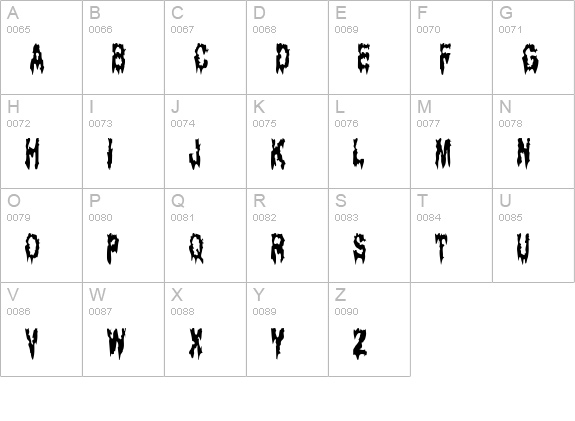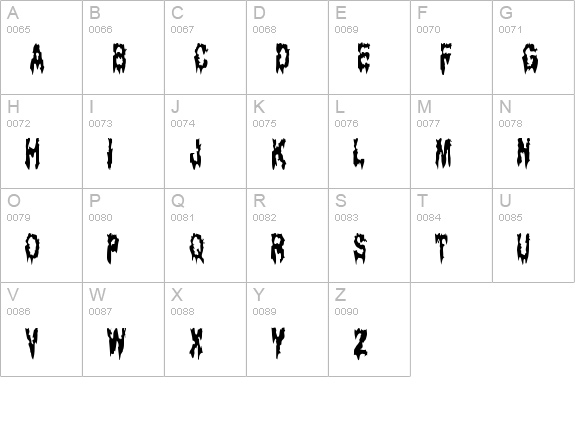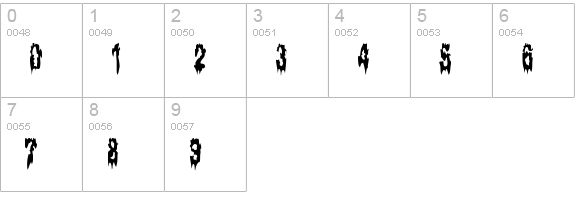
GhostBayou Font Details
Introducing GhostBayou font, a captivating and ethereal typeface that will add a touch of mystery and intrigue to your designs. This unique font features hauntingly beautiful letterforms with a ghostly aura, making it perfect for projects that require a spooky or supernatural vibe. What's even better is that GhostBayou font is available for free download at FontsMarket.com. This means you can easily access this one-of-a-kind font and use it in your personal and commercial projects without any cost. Embrace the enchanting allure of GhostBayou font and bring a touch of the supernatural to your designs today.